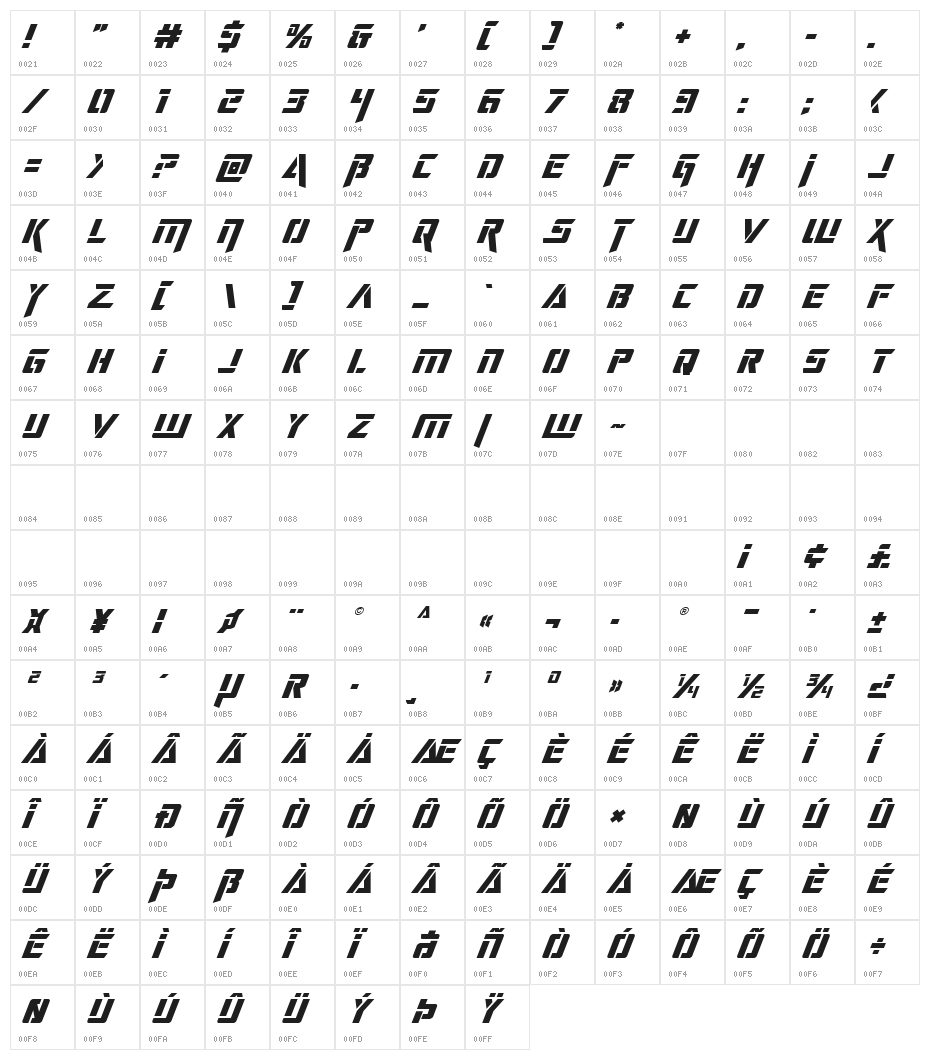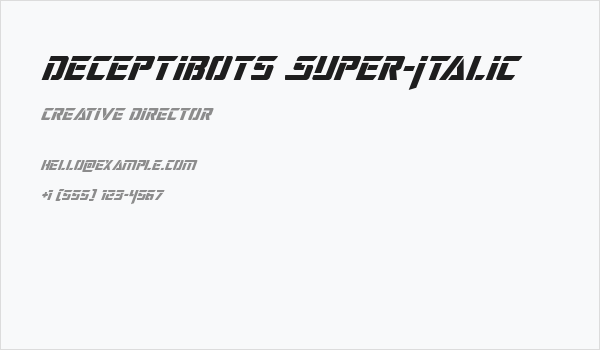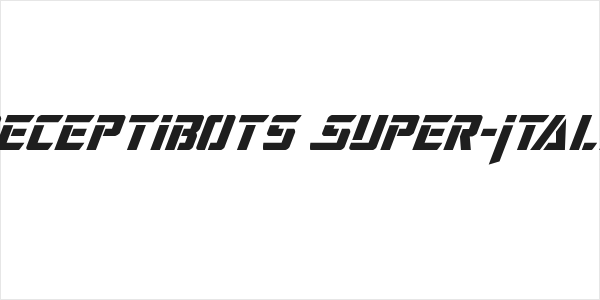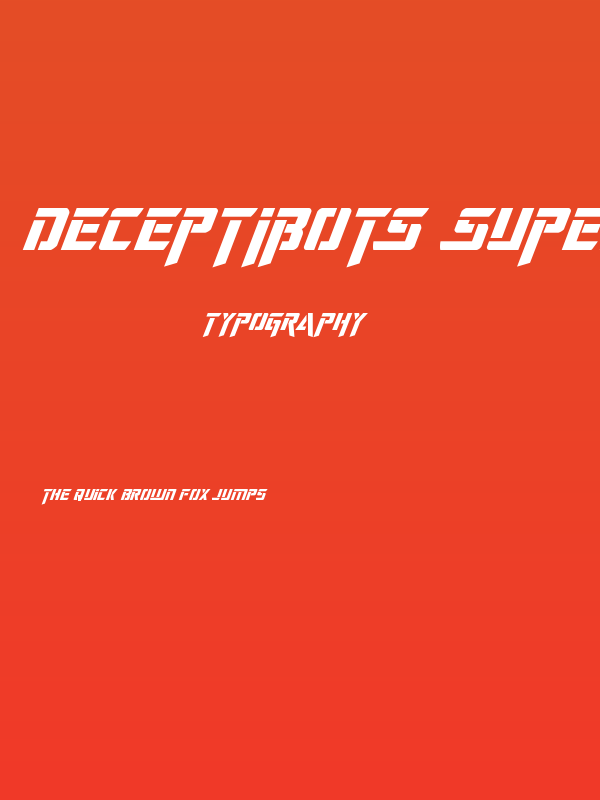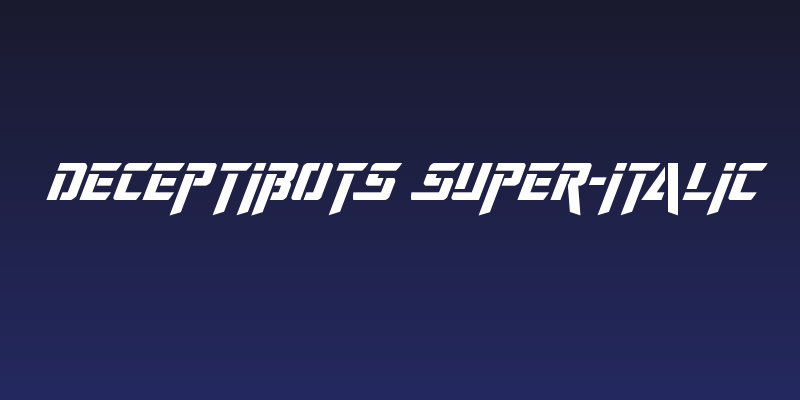
Deceptibots Super-Italic Font
Deceptibots Super-Italic Description
This font features a bold, futuristic design with sharp angles and a strong italic slant, giving it a dynamic and aggressive appearance. The characters are tightly spaced, enhancing the compact and cohesive look. The uppercase and lowercase letters maintain a consistent style, with angular cuts and a sense of motion. Numbers and special characters follow the same design principles, ensuring uniformity across all glyphs. The font's high contrast between thick and thin strokes adds to its striking visual impact, making it ideal for attention-grabbing designs.
| Proposed Projects | Ideal for sci-fi themed projects, video game titles, movie posters, and branding that requires a modern, edgy look. |